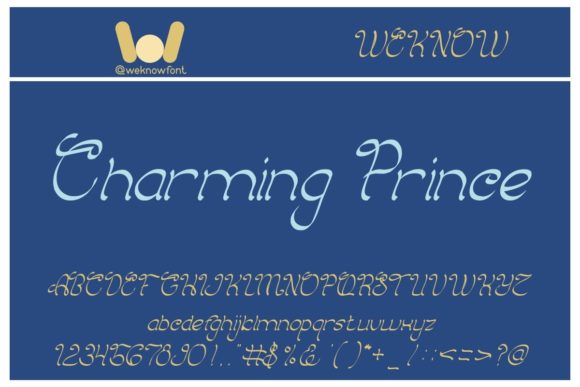
About Charming Prince Font
Charming Prince is a fancy and delicate script font. It is suitable for logos, apparel industry, posters, music, movie titles, games, magazine covers, book, comic, cartoon, YouTube, Instagram, website, or any of your creative design projects.